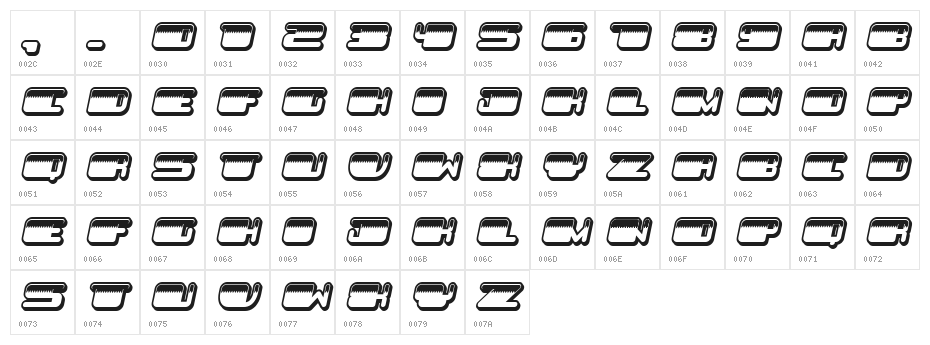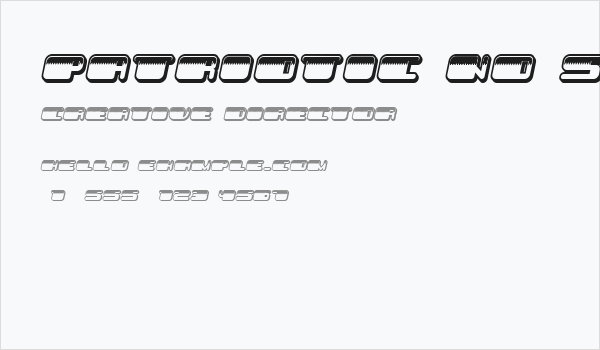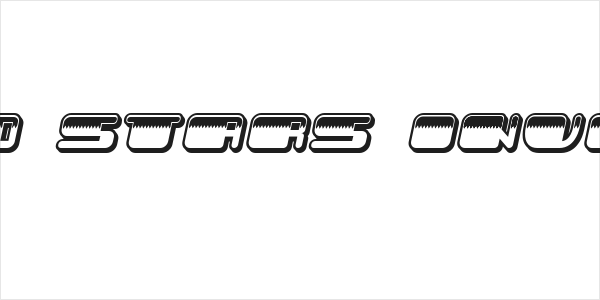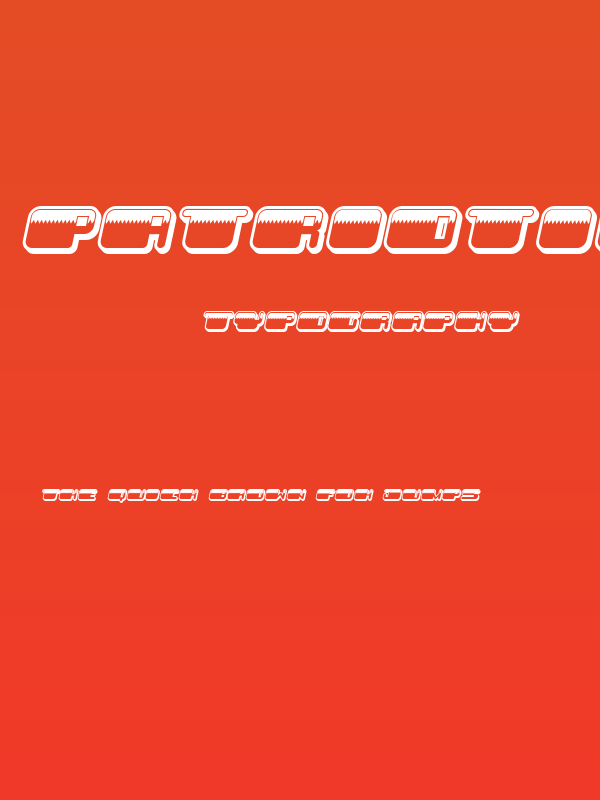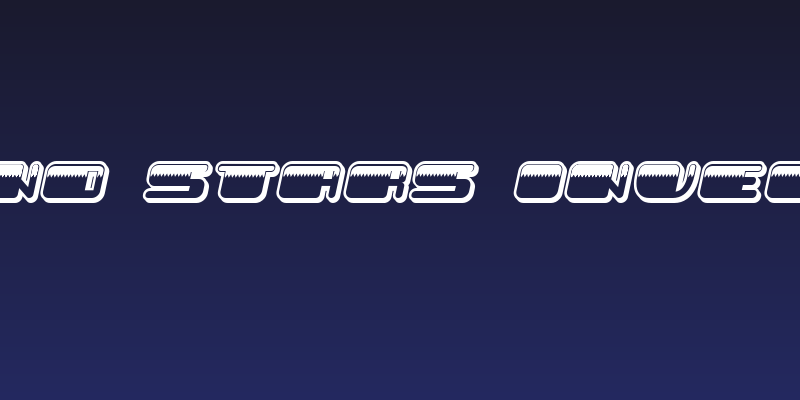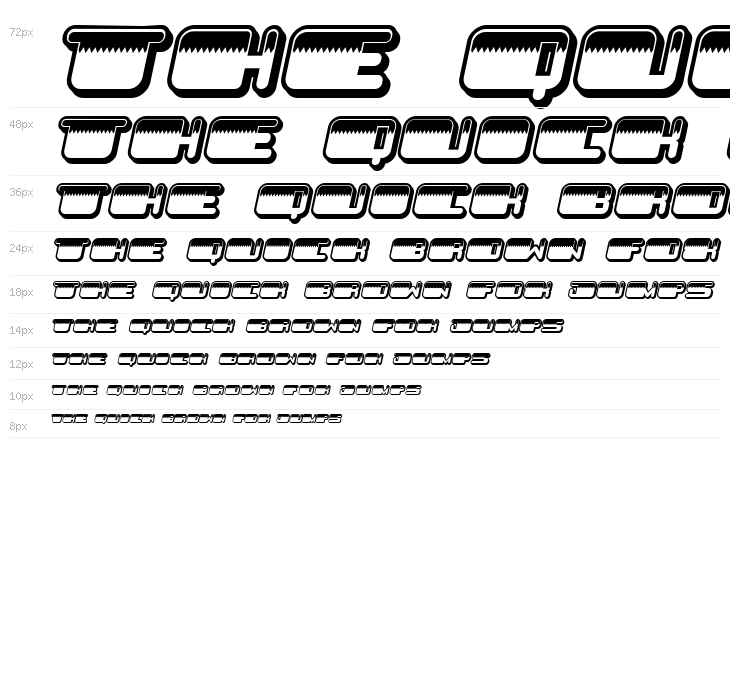
Patriotic No Stars Inverted Italic Font
Patriotic No Stars Inverted Italic Description
This font features a bold and dynamic design with a distinct outline style. The characters are italicized, giving them a forward-leaning appearance that adds a sense of motion and energy. The font has a unique, decorative quality with its thick, rounded edges and hollow centers, creating a striking visual impact. The uppercase and lowercase letters maintain a consistent style, while the numbers and special characters are equally bold and expressive. This font is ideal for making a statement, with its eye-catching design and strong presence.
| Proposed Projects | Ideal for posters, logos, and branding materials that require a bold and energetic look. |